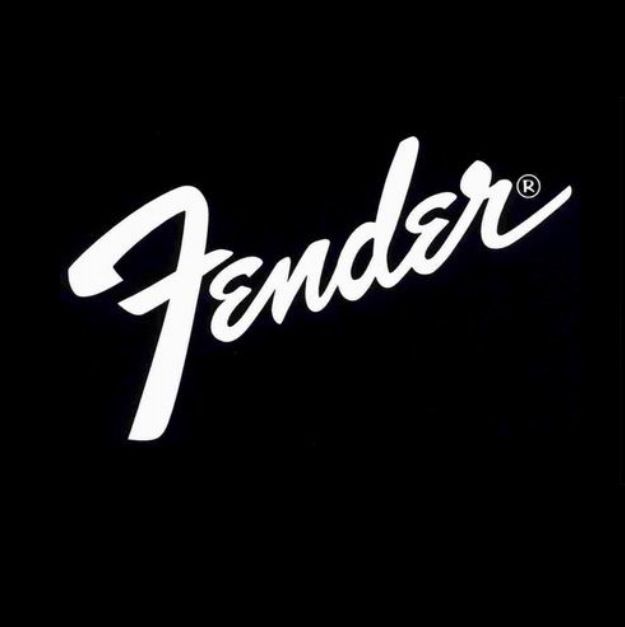
What Font Does Fender Use . a subreddit for identifying fonts: download the free font replicating the fender logo and many more at the original famous fonts! The tab preserves the boldness of the fender brand by consistently showcasing the spaghetti mark within. The font comes in uppercase and lowercase letters. the fender font does a great job at imitating the lettering in fender’s logo. Since then, it has been downloaded 42,619 times and. You can google a full font designed to match the style, but the fender logo is just the word fender drawn. strato font is a fender font and was created on sep 6, 2012. it's not an exact font. the font is used on fender guitars between 1952 and 1967 (and the modern reproductions as well), so it has to have existed in the 50s. Show us a sample and we'll try to find the font. The name of the fender font which looks most like the original logo lettering for this legendary guitar manufacturer, is a typeface by the name of.
the font is used on fender guitars between 1952 and 1967 (and the modern reproductions as well), so it has to have existed in the 50s. The font comes in uppercase and lowercase letters. a subreddit for identifying fonts: The tab preserves the boldness of the fender brand by consistently showcasing the spaghetti mark within. it's not an exact font. You can google a full font designed to match the style, but the fender logo is just the word fender drawn. strato font is a fender font and was created on sep 6, 2012. Since then, it has been downloaded 42,619 times and. The name of the fender font which looks most like the original logo lettering for this legendary guitar manufacturer, is a typeface by the name of. Show us a sample and we'll try to find the font.
What Font Does Fender Use Since then, it has been downloaded 42,619 times and. You can google a full font designed to match the style, but the fender logo is just the word fender drawn. Show us a sample and we'll try to find the font. The name of the fender font which looks most like the original logo lettering for this legendary guitar manufacturer, is a typeface by the name of. download the free font replicating the fender logo and many more at the original famous fonts! strato font is a fender font and was created on sep 6, 2012. a subreddit for identifying fonts: The font comes in uppercase and lowercase letters. the font is used on fender guitars between 1952 and 1967 (and the modern reproductions as well), so it has to have existed in the 50s. The tab preserves the boldness of the fender brand by consistently showcasing the spaghetti mark within. it's not an exact font. Since then, it has been downloaded 42,619 times and. the fender font does a great job at imitating the lettering in fender’s logo.
What Font Does Fender Use On Its Branding Materials? HipFonts What Font Does Fender Use it's not an exact font. The tab preserves the boldness of the fender brand by consistently showcasing the spaghetti mark within. the font is used on fender guitars between 1952 and 1967 (and the modern reproductions as well), so it has to have existed in the 50s. a subreddit for identifying fonts: the fender font does. What Font Does Fender Use.
Fender Font and Fender Font Generator What Font Does Fender Use The tab preserves the boldness of the fender brand by consistently showcasing the spaghetti mark within. a subreddit for identifying fonts: the fender font does a great job at imitating the lettering in fender’s logo. strato font is a fender font and was created on sep 6, 2012. The name of the fender font which looks most. What Font Does Fender Use.
Fender Logo changes thru the years... … Musik gitarre, Egitarre, Gitarre What Font Does Fender Use The font comes in uppercase and lowercase letters. strato font is a fender font and was created on sep 6, 2012. The tab preserves the boldness of the fender brand by consistently showcasing the spaghetti mark within. download the free font replicating the fender logo and many more at the original famous fonts! the fender font does. What Font Does Fender Use.
SF Chrome Fenders Font Family · 1001 Fonts What Font Does Fender Use The font comes in uppercase and lowercase letters. Show us a sample and we'll try to find the font. it's not an exact font. The name of the fender font which looks most like the original logo lettering for this legendary guitar manufacturer, is a typeface by the name of. You can google a full font designed to match. What Font Does Fender Use.
What Font Does Fender Use On Its Branding Materials? HipFonts What Font Does Fender Use it's not an exact font. The tab preserves the boldness of the fender brand by consistently showcasing the spaghetti mark within. download the free font replicating the fender logo and many more at the original famous fonts! Show us a sample and we'll try to find the font. The font comes in uppercase and lowercase letters. You can. What Font Does Fender Use.
Fender style font Telecaster Guitar Forum What Font Does Fender Use it's not an exact font. strato font is a fender font and was created on sep 6, 2012. the font is used on fender guitars between 1952 and 1967 (and the modern reproductions as well), so it has to have existed in the 50s. The tab preserves the boldness of the fender brand by consistently showcasing the. What Font Does Fender Use.
Fender 5 Font Download For Free, View Sample Text, Rating And More On What Font Does Fender Use a subreddit for identifying fonts: Show us a sample and we'll try to find the font. The name of the fender font which looks most like the original logo lettering for this legendary guitar manufacturer, is a typeface by the name of. the font is used on fender guitars between 1952 and 1967 (and the modern reproductions as. What Font Does Fender Use.
Fender Font › Fontesk What Font Does Fender Use You can google a full font designed to match the style, but the fender logo is just the word fender drawn. The tab preserves the boldness of the fender brand by consistently showcasing the spaghetti mark within. it's not an exact font. Show us a sample and we'll try to find the font. Since then, it has been downloaded. What Font Does Fender Use.
Fender Font Download Free Fonts Lab What Font Does Fender Use the fender font does a great job at imitating the lettering in fender’s logo. the font is used on fender guitars between 1952 and 1967 (and the modern reproductions as well), so it has to have existed in the 50s. it's not an exact font. You can google a full font designed to match the style, but. What Font Does Fender Use.